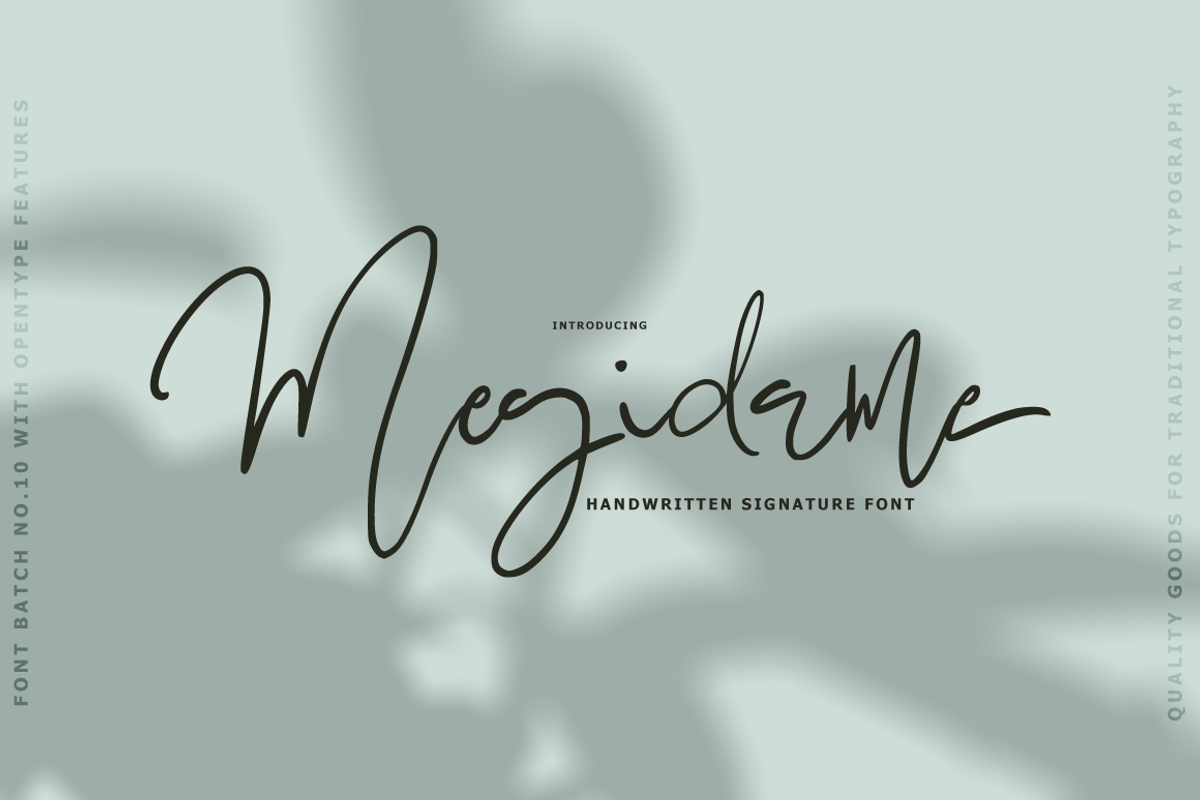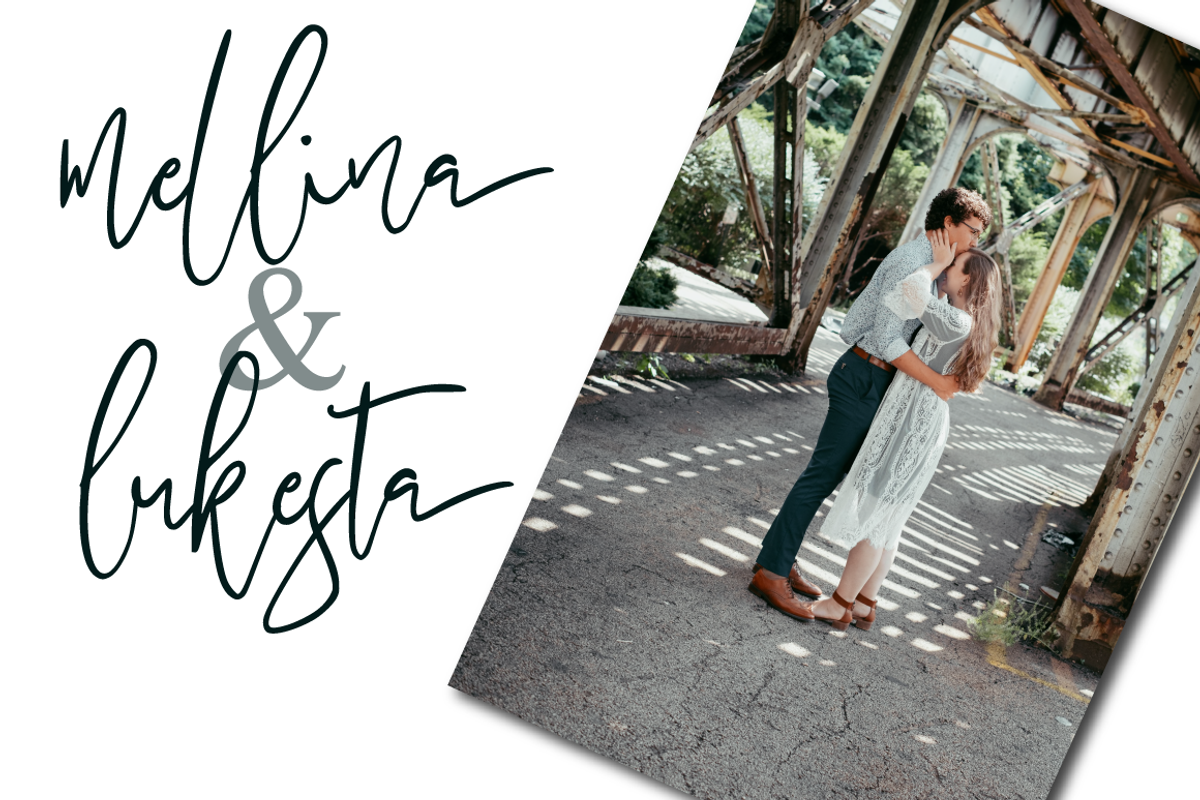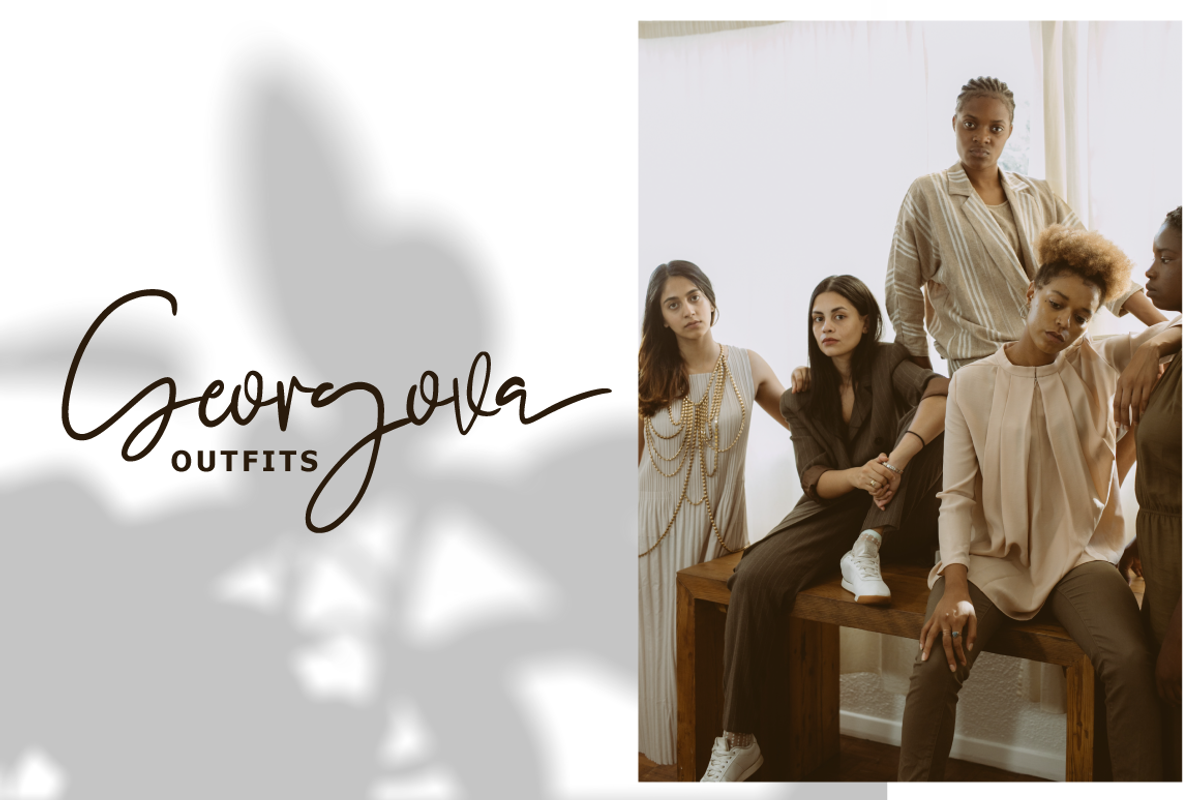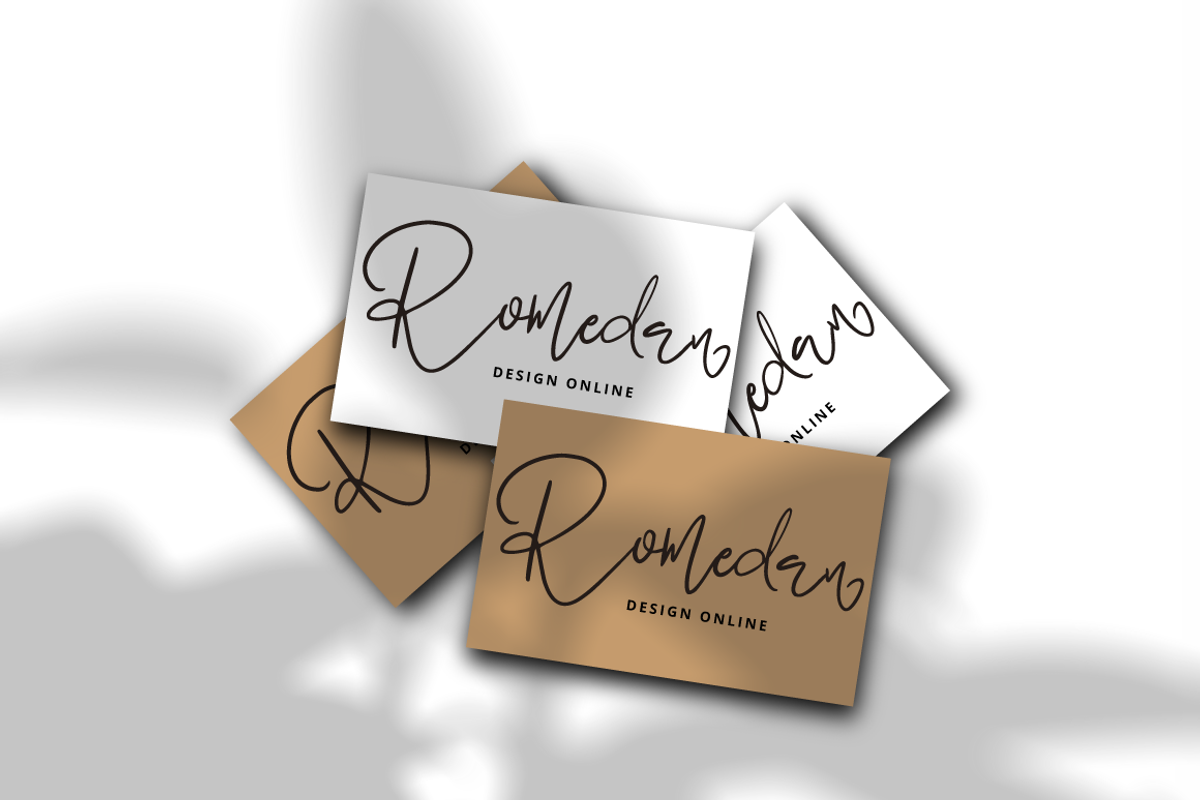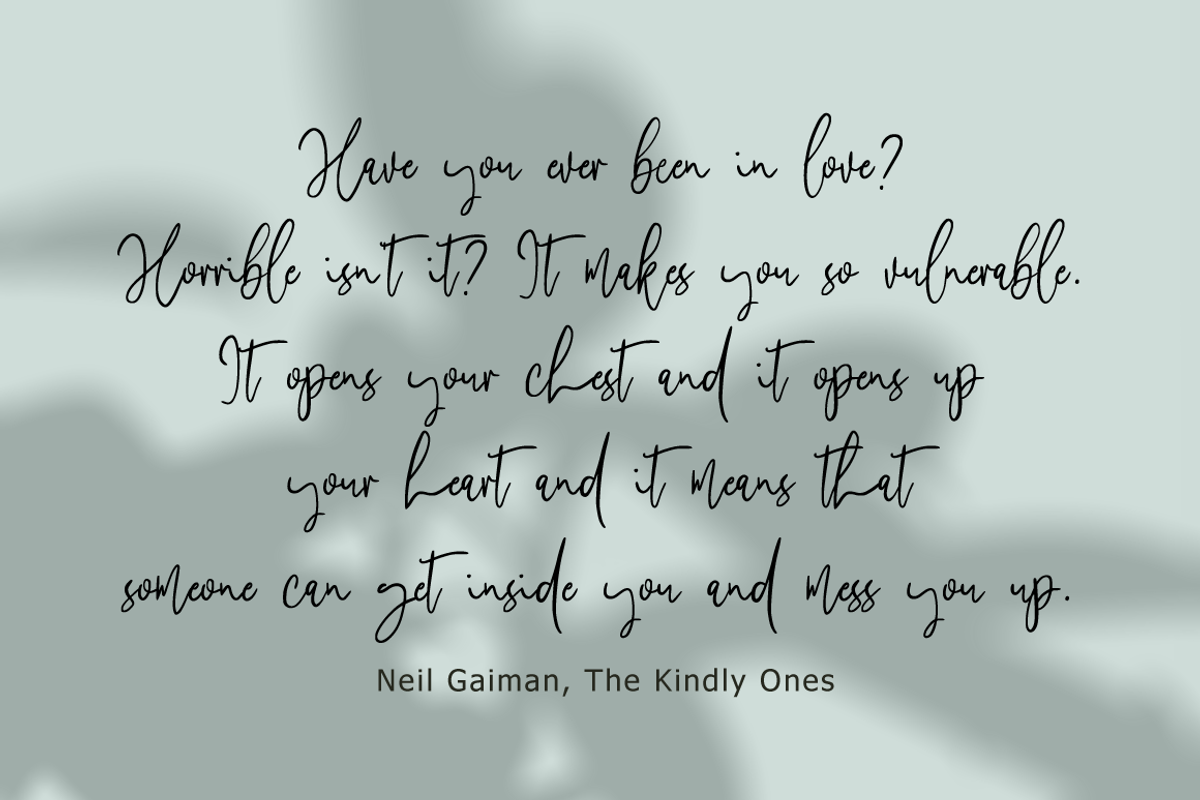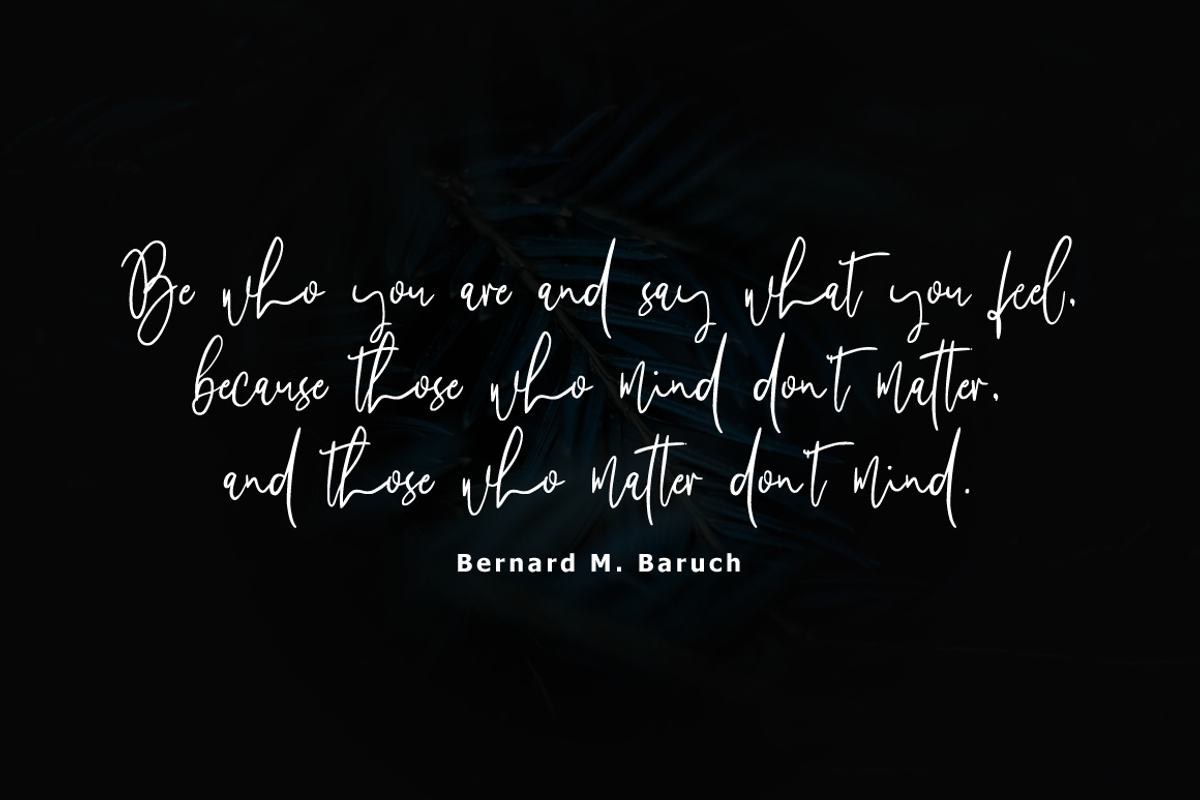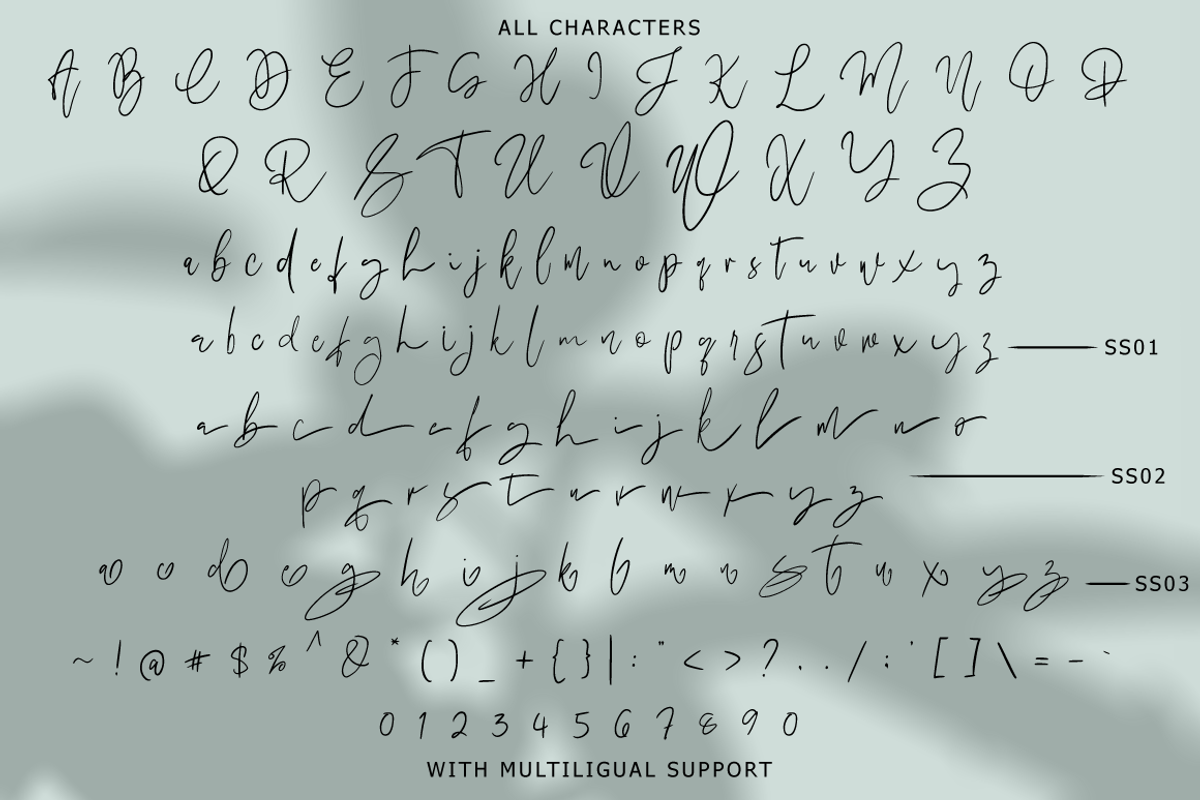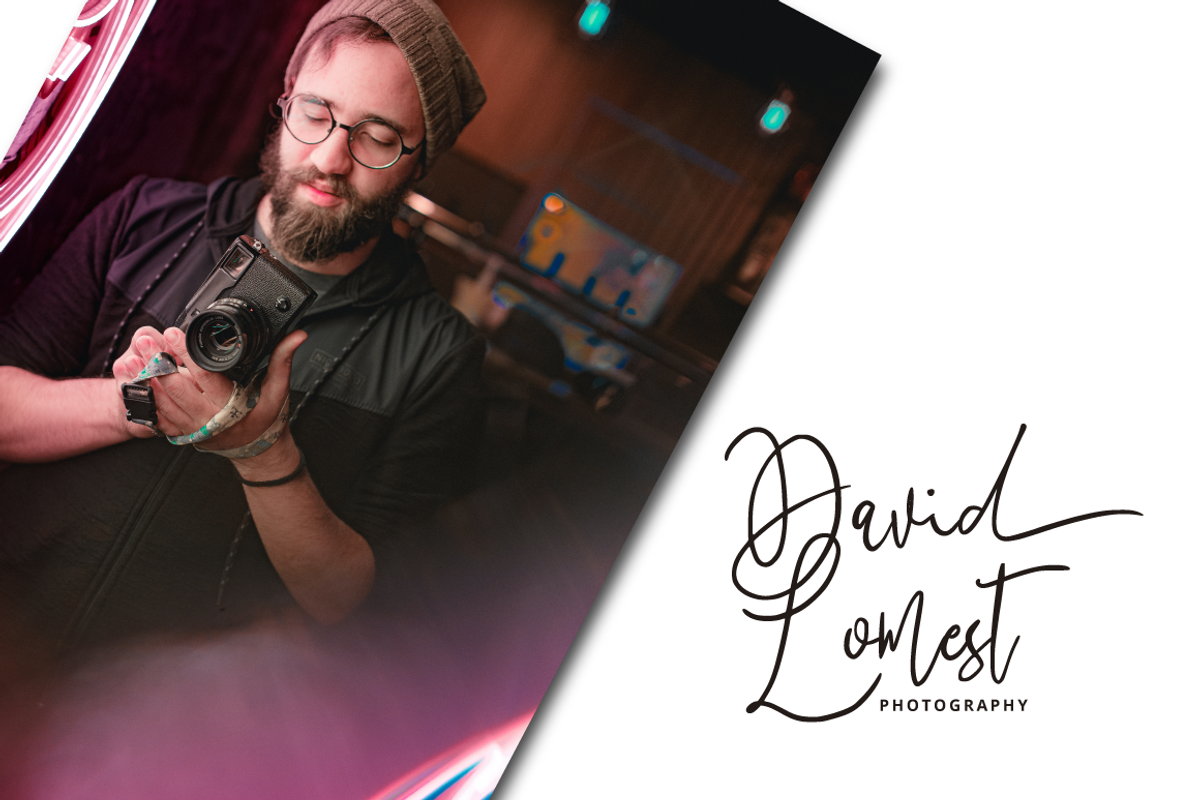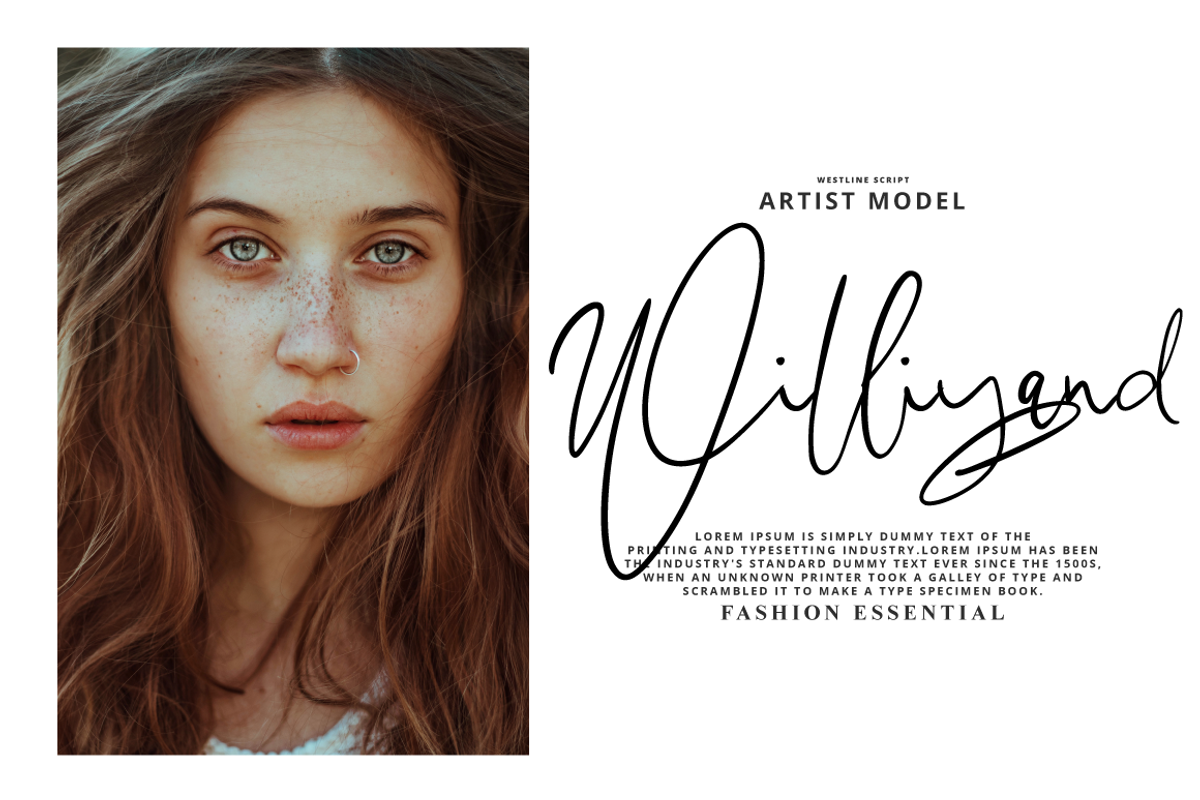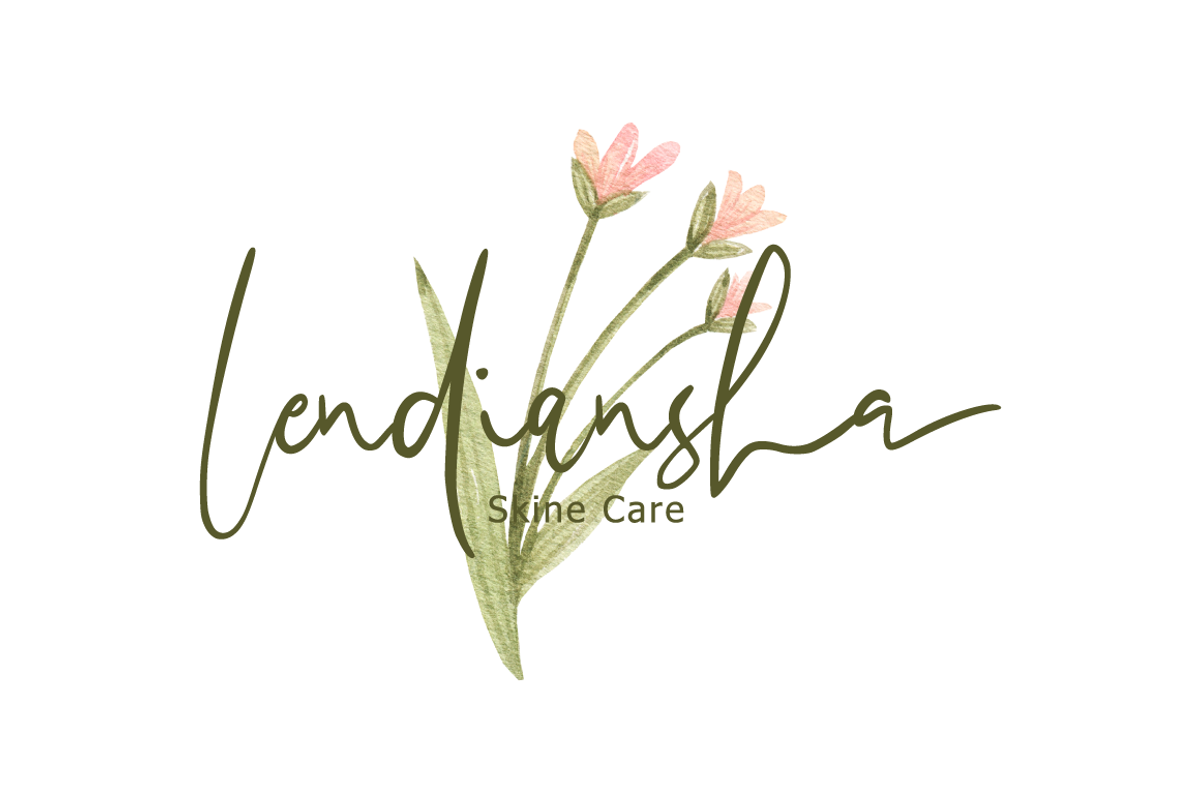
Megidame - Handwritten Signature
Megidame Signature with a handmade Signature style, decorative characters and a dancing baseline! So beautiful on invitation like greeting cards, branding materials, business cards, quotes, posters, and more!!
Megidame Signature come with 200+ glyphs. The alternative characters were divided into several Open Type features such as Swash, Stylistic Sets, Stylistic Alternates, and Ligature. The Open Type features can be accessed by using Open Type savvy programs such as Adobe Illustrator, Adobe InDesign, Adobe Photoshop Corel Draw X version, And Microsoft Word. And this Font has given PUA unicode (specially coded fonts). so that all the alternate characters can easily be accessed in full by a craftsman or designer.
Hilmounte Signature Features :
Uppercase & Lowercase International Languange & Symbols Support Punctuation & Number PUA Unicode Range Standard Ligatures Discretionary Ligatures Stylistic Alternates Stylistic Set.